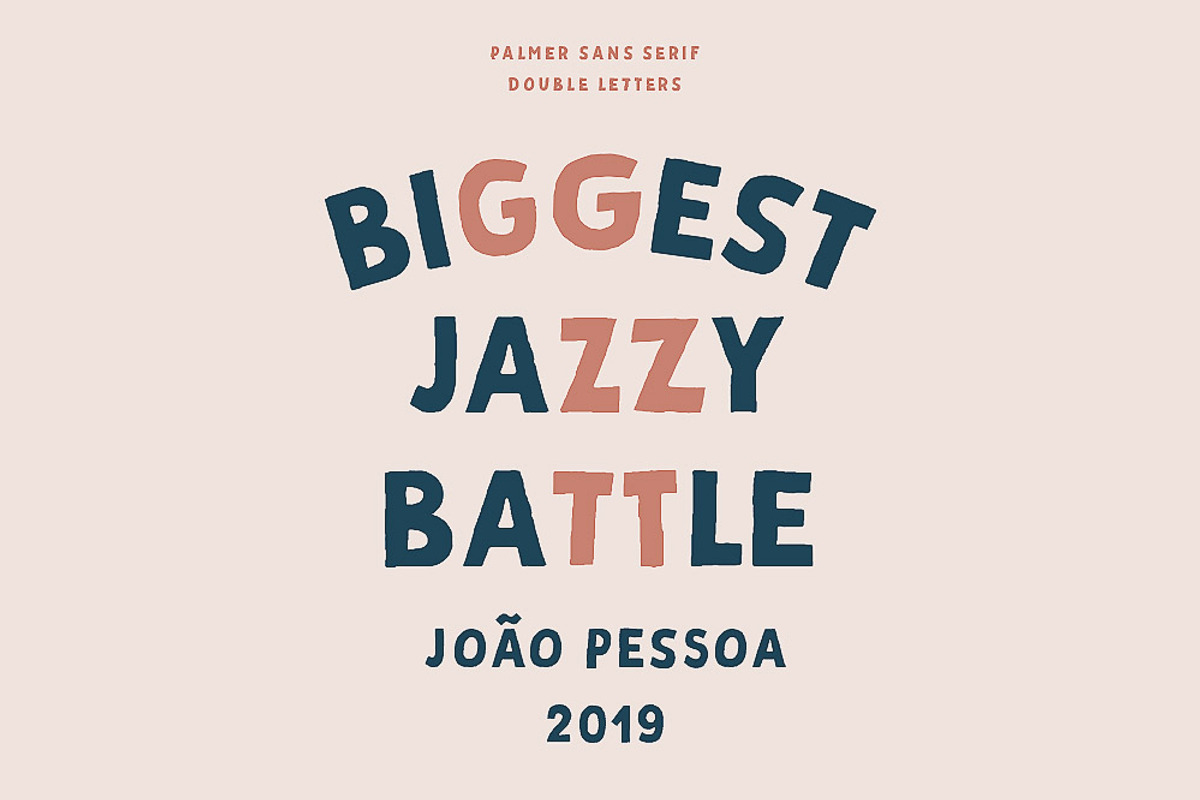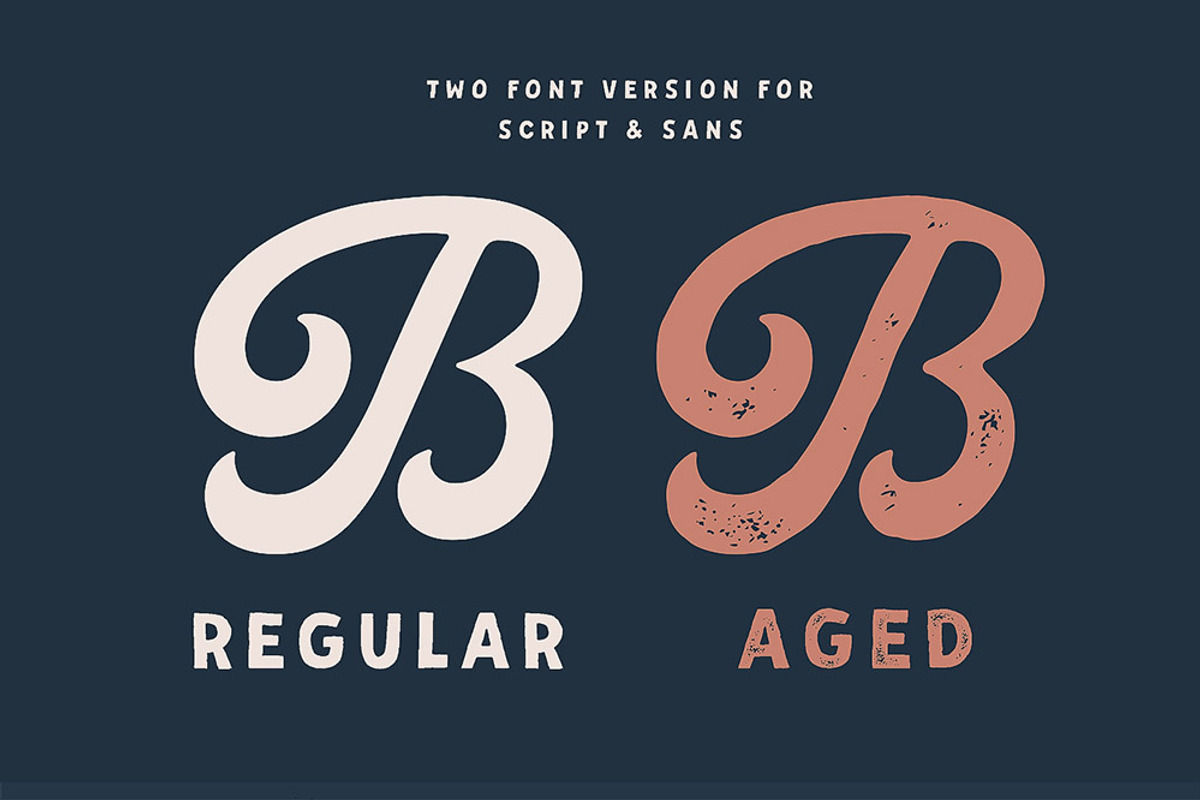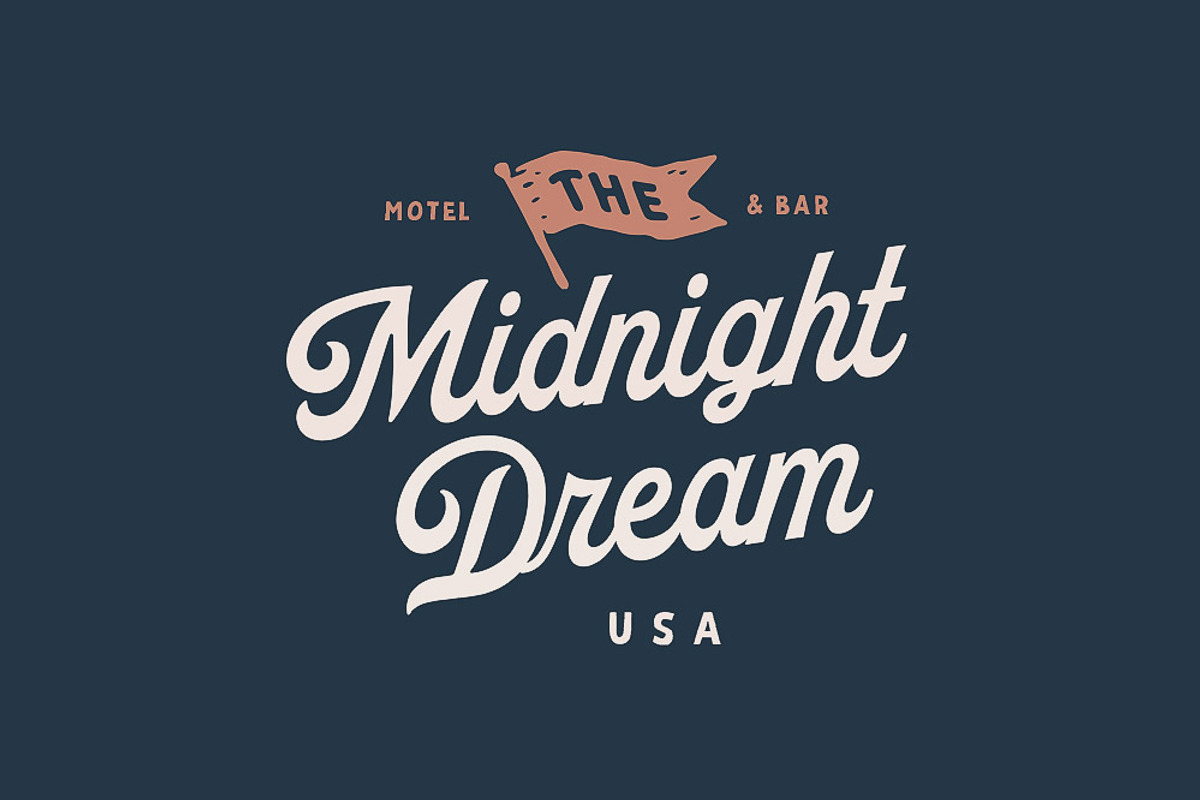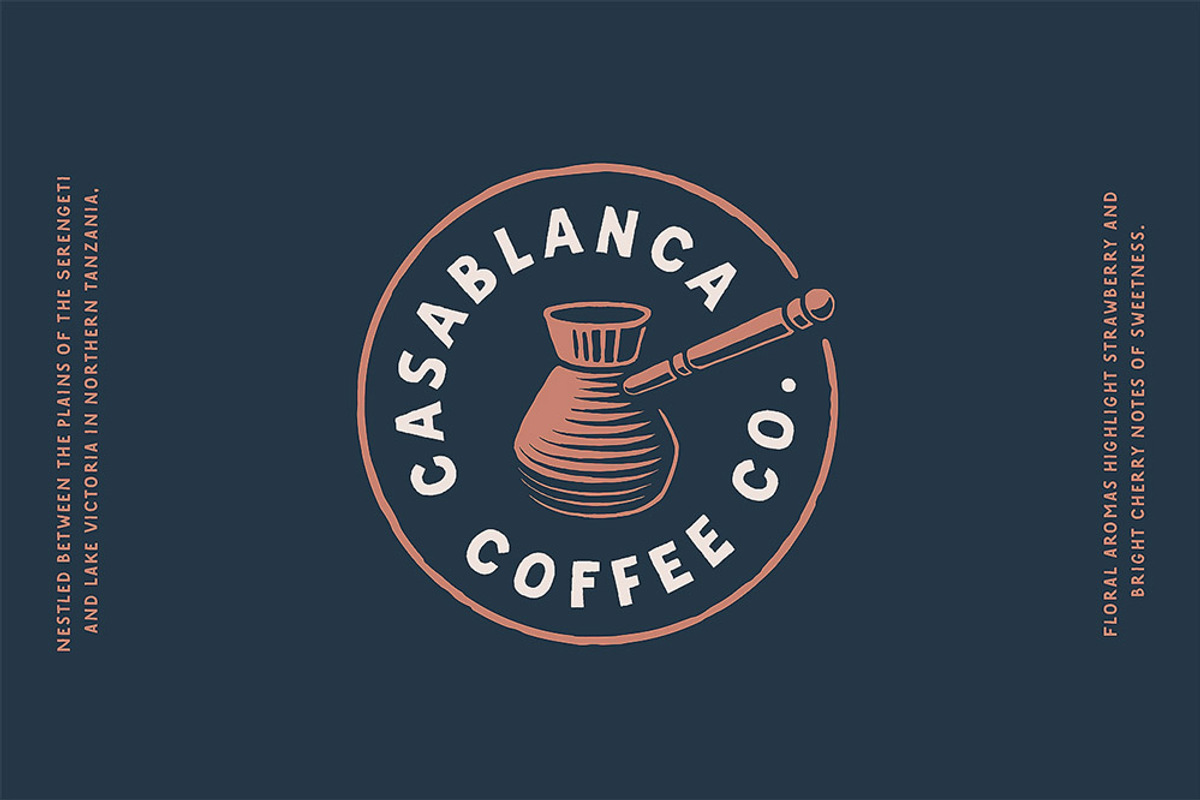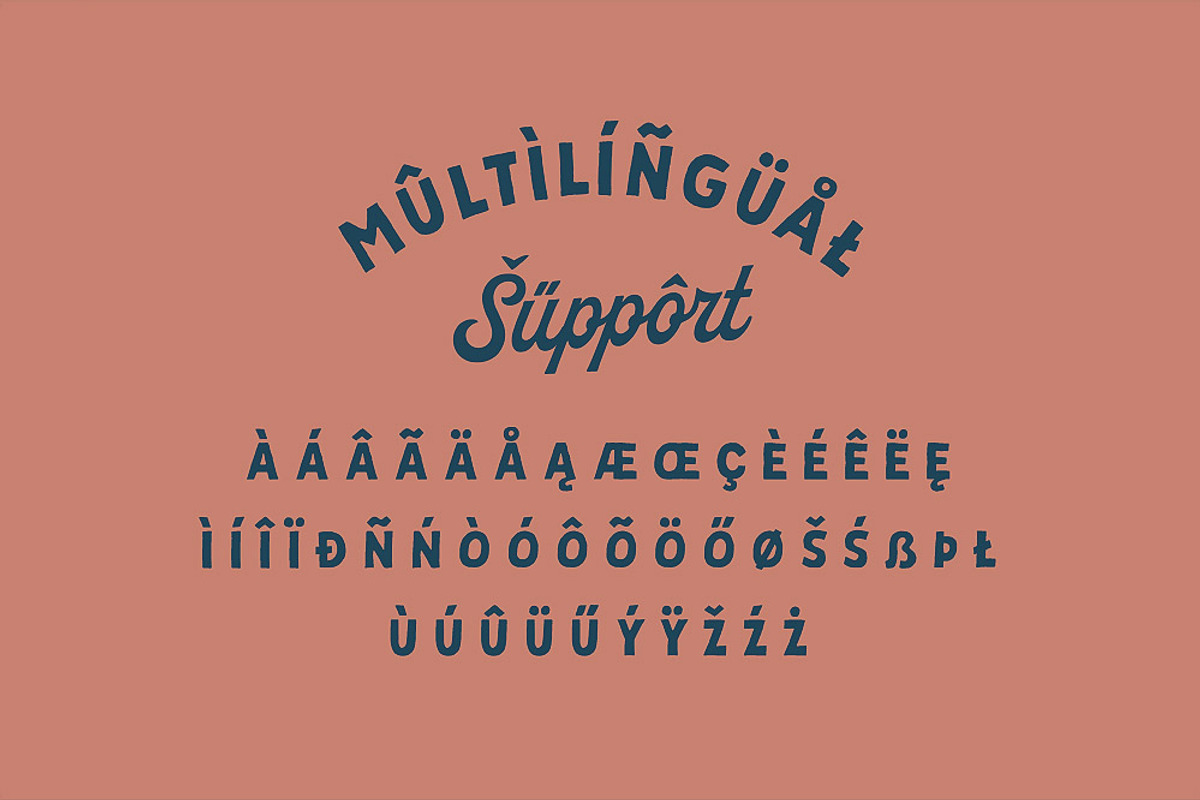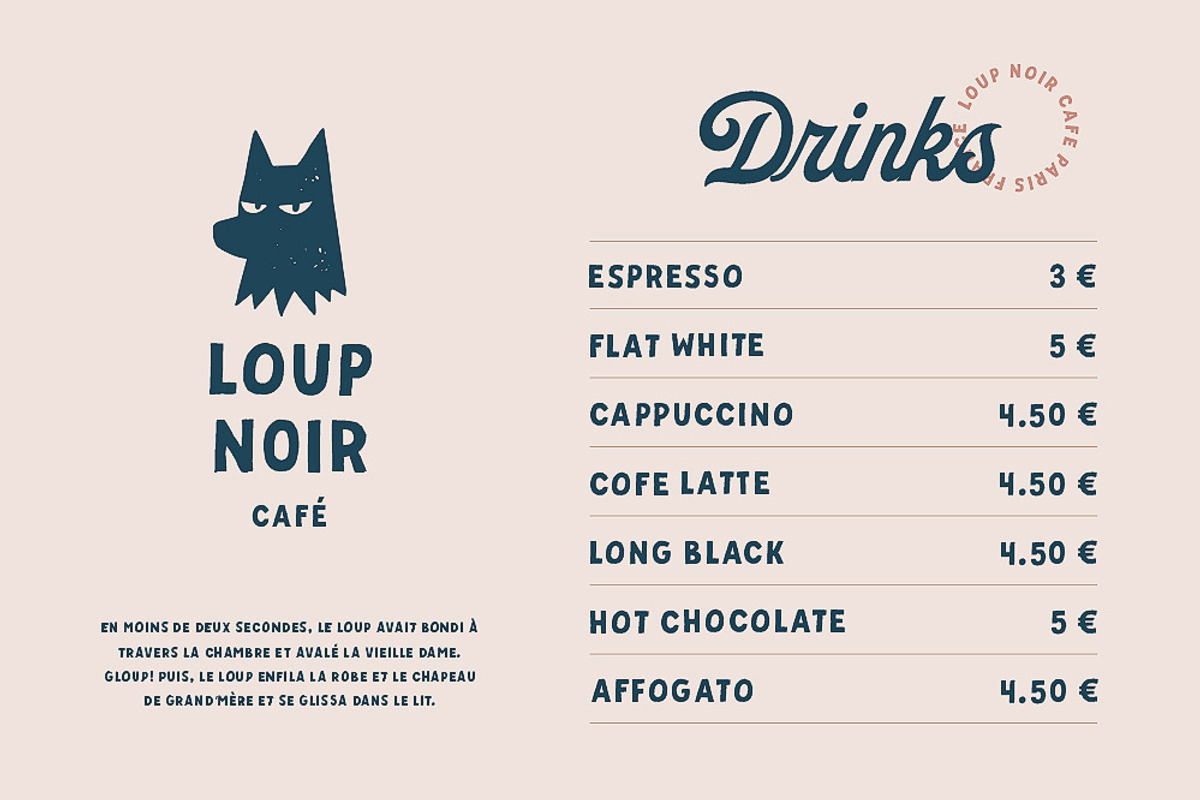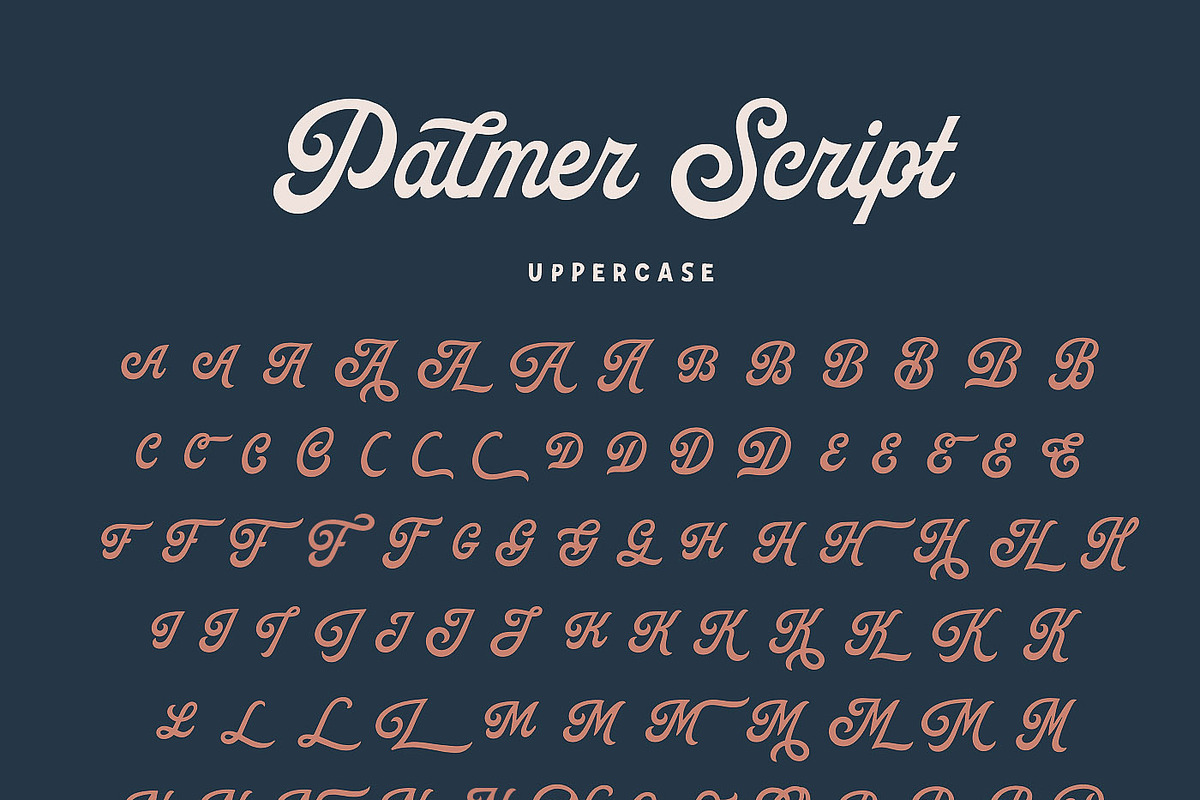
Palmer Script & Sans + Logo Template
Palmer Script & Sans was inspired by the spirit of the past — when manual labor was the norm and technology was only beginning to emerge. Carefully handcrafted, this pair was created for traditional typography enthusiasts and anyone looking to add a natural, handmade feel to their brand identity. It comes in both Regular and Aged versions, expanding its creative possibilities.
The script font includes 151 stylistic alternates and 3 end-swashes, each with around 10 length variations.
Palmer works beautifully for logos, labels, t-shirt prints, product packaging, invitations, advertising, and more. I've created a few design examples to show how it can be used in real projects.
- Palmer Script (Regular & Aged)
- Palmer Sans Serif (Regular & Aged)